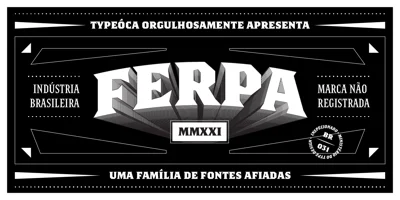
Ferpa Font
Perfect for educational compliance documentation, privacy policy materials, academic administrative communications, student records management systems, institutional regulatory signage, confidential document design, legal compliance training materials, and secure information handling applications.
This font is exciting because it embodies the trustworthy precision and regulatory authority of educational privacy protection with secure letterforms that capture the professional reliability and confidential integrity found in academic compliance and student information security systems.
Secure your educational communications with Ferpa Font, a professionally reliable typeface that embodies the trustworthy precision and regulatory authority of educational privacy protection standards. This exceptional font brings the confidential integrity and institutional reliability essential for academic compliance to contemporary design projects, making it indispensable for educational institutions, compliance organizations, and privacy-focused businesses seeking to convey the secure professionalism and regulatory excellence of student information protection and educational privacy standards.
Ferpa Font features securely engineered letterforms with compliance characteristics and regulatory proportions that immediately communicate institutional trustworthiness and privacy protection reliability. The professionally designed characters combine security aesthetics with optimal clarity, creating immediate associations with regulatory compliance, confidential handling, and the institutional integrity that defines authentic educational privacy protection and academic information security throughout professional educational and compliance communities worldwide.
The font's remarkable security character makes it ideal for educational institutions, compliance consulting firms, and privacy protection organizations where conveying regulatory authority and confidential reliability is essential for maintaining institutional trust and demonstrating compliance excellence. Whether you're designing materials for universities implementing FERPA compliance programs, creating documentation for educational privacy consulting services, or developing communications for student information security systems, Ferpa Font delivers the authentic compliance aesthetic that resonates with administrators seeking genuine privacy protection and regulatory excellence.
Educational compliance professionals and privacy protection specialists worldwide choose the Ferpa Font for projects requiring regulatory authenticity and institutional security appeal. The font works exceptionally well for academic registrar offices managing confidential student records, educational technology companies emphasizing privacy protection, compliance training organizations promoting regulatory awareness, and any institution seeking to establish connections with stakeholders who prioritize educational privacy and the secure handling of confidential academic information and student data protection.
The comprehensive Ferpa Font family includes variations that maintain the signature secure character while providing design flexibility for diverse compliance and privacy applications. Each character demonstrates exceptional attention to regulatory design principles, ensuring the trustworthy character remains authentic and visually compelling across all sizes, from detailed compliance documentation to large-scale institutional privacy signage and educational security materials.
This typeface excels in applications where creating atmosphere of regulatory reliability and institutional security is crucial for establishing compliance credibility and privacy protection connection. The secure letterforms create immediate associations with confidential handling that eliminates the need for additional security symbols, allowing the typography itself to communicate regulatory excellence, privacy protection, and the institutional integrity that educational compliance represents in academic administration and student information security.
Ferpa Font's technical excellence ensures optimal performance across both traditional compliance documentation and modern digital platforms used for educational privacy communications and regulatory training materials. The distinctive letterforms maintain their secure appeal when reproduced on various materials, from confidential documents to digital systems that must convey institutional trustworthiness and privacy protection excellence.